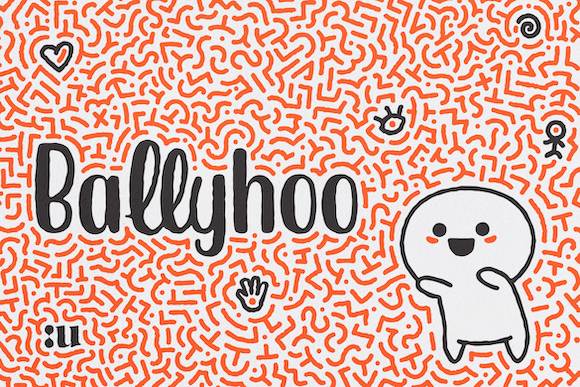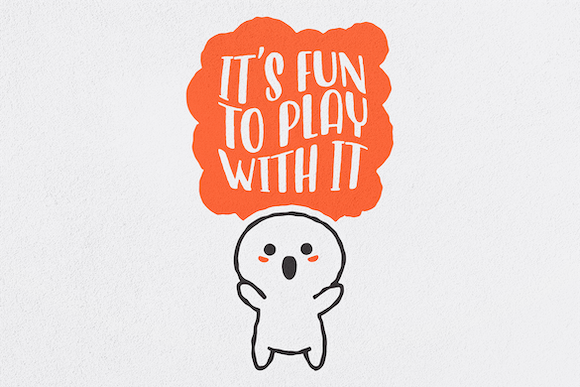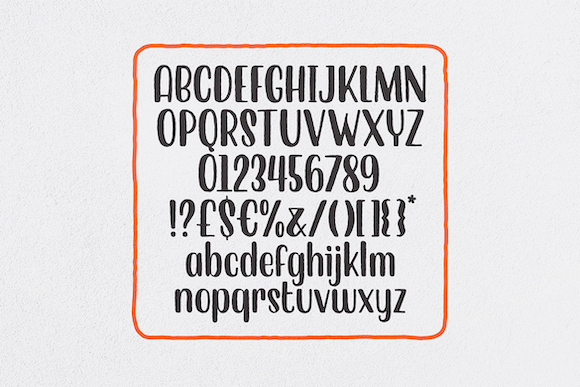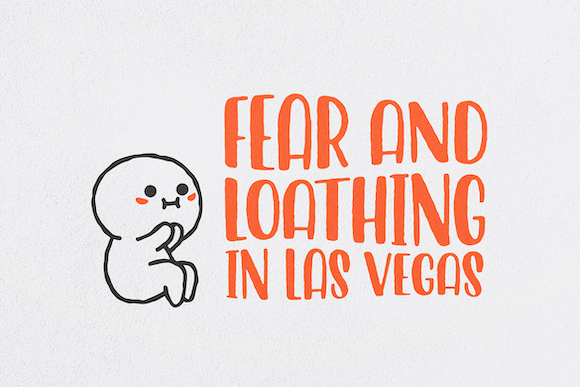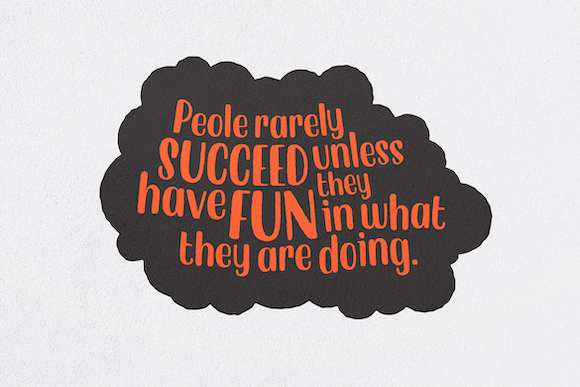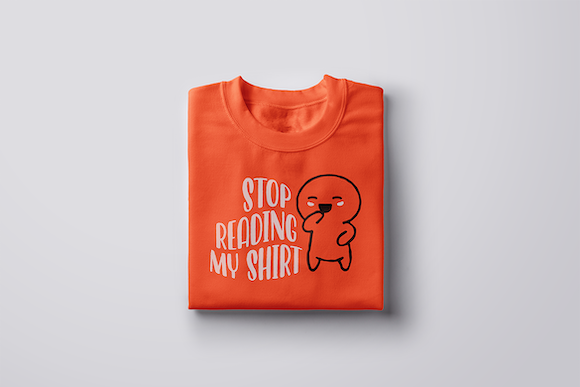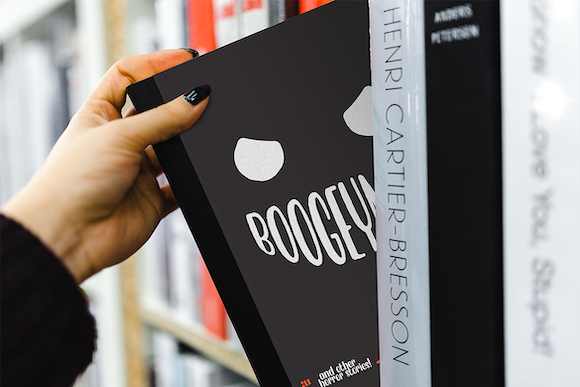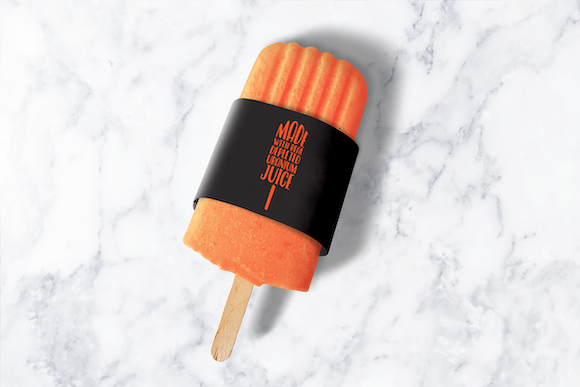
HomeScript FontsBallyhoo Font Script Fonts Ballyhoo Font FacebookXPinterestWhatsApp Ballyhoo Font Poster 2 Ballyhoo Font Poster 3 Ballyhoo Font Poster 4 Ballyhoo Font Poster 5 Ballyhoo Font Poster 6 Ballyhoo Font Poster 7 Ballyhoo Font Poster 8 About Ballyhoo Font Ballyhoo is a stunning and playful script with a cool vibe. Get inspired by its whimsical style! DOWNLOAD ON CREATIVE FABRICAThis font is sold and delivered by Creative Fabrica. Font Canyon may earn a commission if you buy through this link. People also explored Christmas Moments Font Leaf Ver.3 Font Honey Monogram Font School Font Brushella Font Shepherd Font Beatrices Font Wekku Font Foo 468 0 TagsBallyhoo Font Previous articleLucky Layla FontNext articleMerlinian Font LEAVE A REPLY Cancel reply Comment: Please enter your comment! Name:* Please enter your name here Email:* You have entered an incorrect email address! Please enter your email address here Website: Save my name, email, and website in this browser for the next time I comment. Personal Use Free Just Smile Personal Use Free Read more about this font Mustica Personal Use Free Read more about this font Vembazax Rm Personal Use Free Read more about this font Zeshane Personal Use Free Read more about this font BLOG Elegant Wedding Invitation Fonts – Handwritten & Script Fonts Elegant Wedding Invitation Fonts Your wedding day is one of the most important moments of your life, and every detail matters—including your invitation design. Our... Best Fonts for T-Shirt Design – Top 2025 Picks Free vs Paid Fonts: Why Investing in Premium Fonts Is Worth It Fonts That Capture the Spirit of New York City